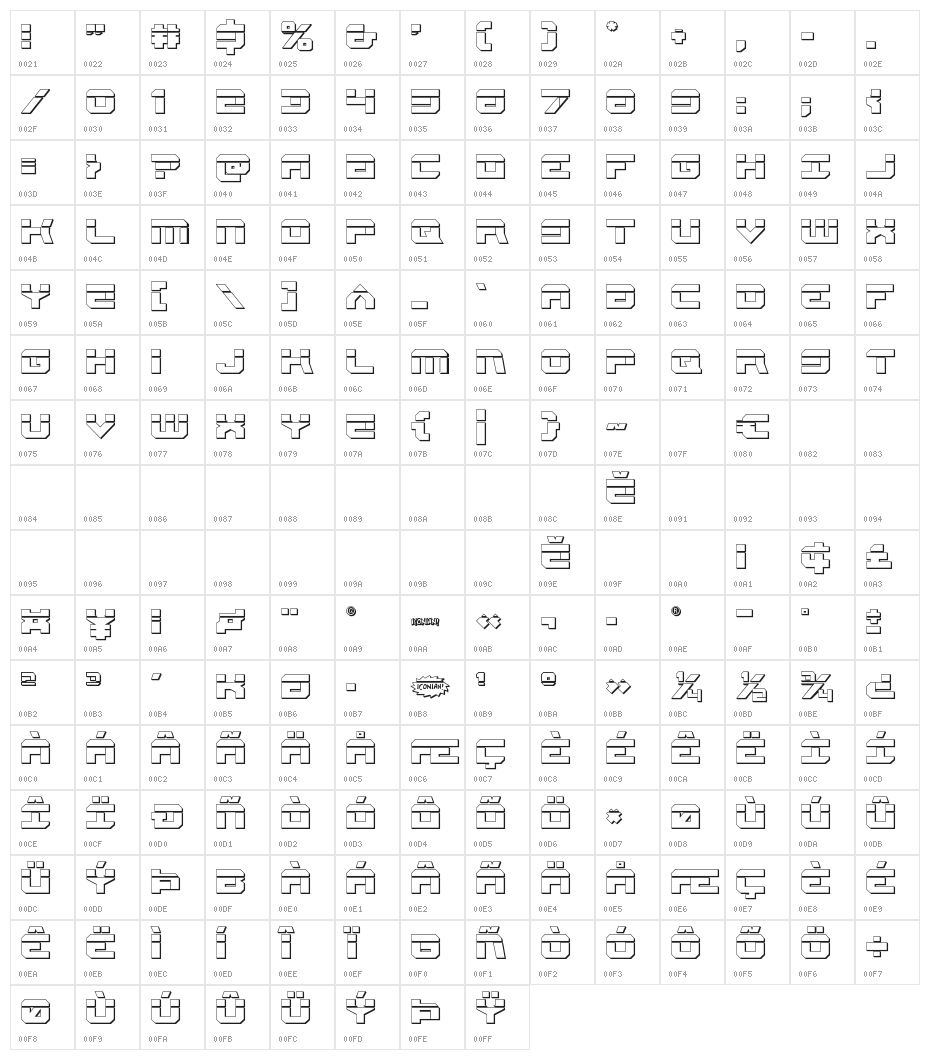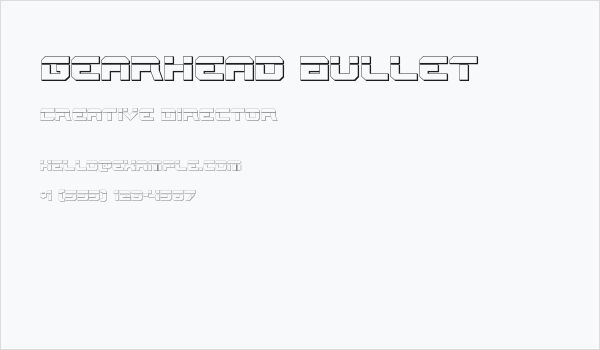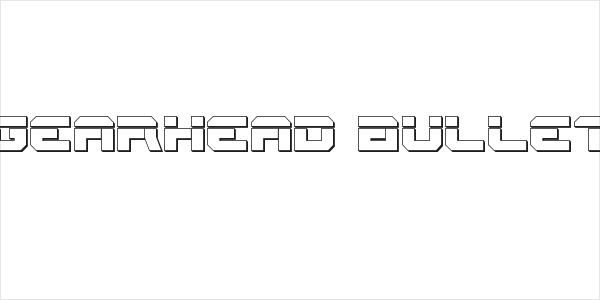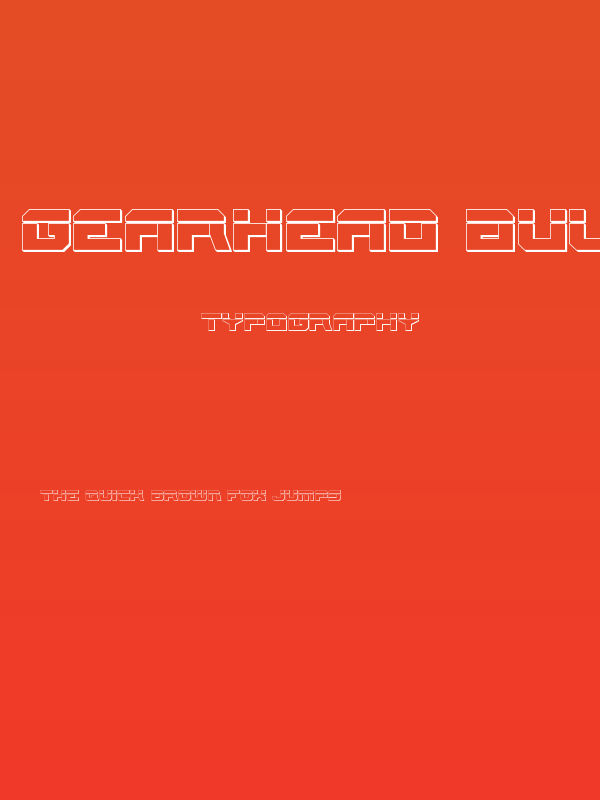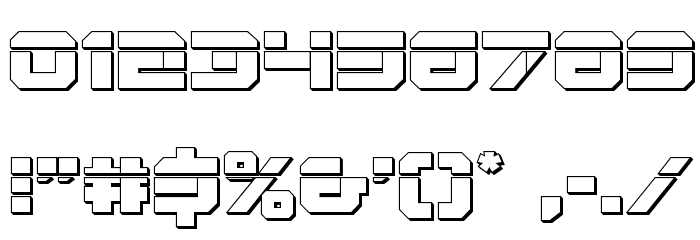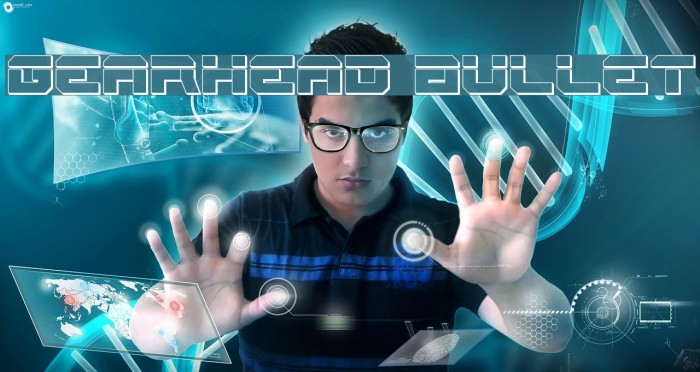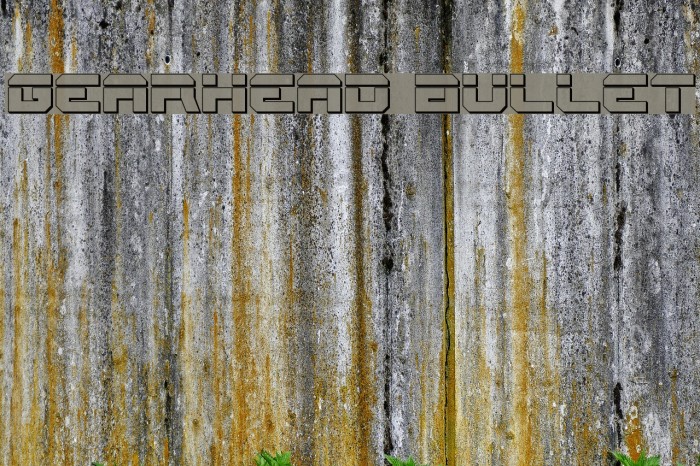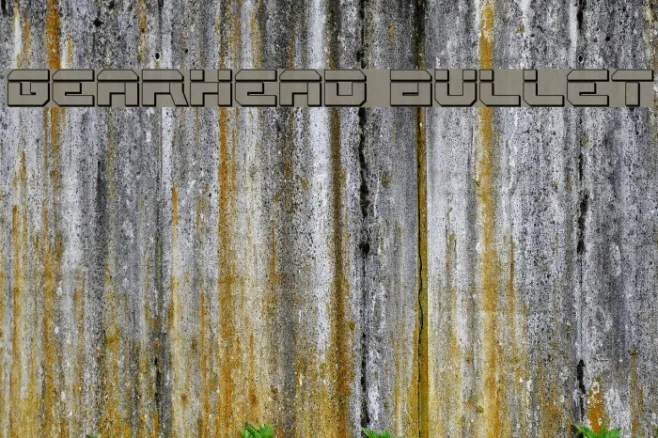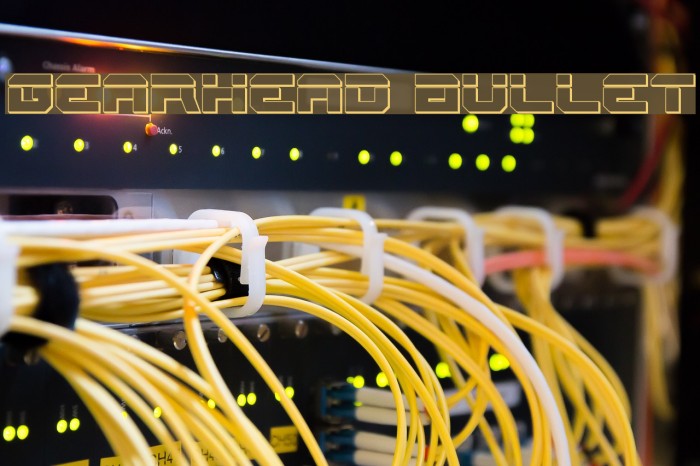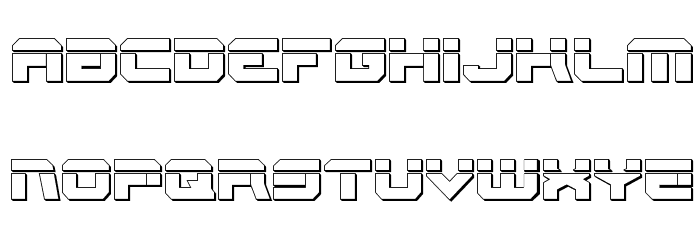
Gearhead Bullet Font
Gearhead Bullet Description
This font features a bold, geometric design with a futuristic and industrial feel. The characters are constructed with thick lines and sharp angles, creating a sense of depth and dimension. Each letter is outlined, giving it a three-dimensional appearance that stands out on the page. The uppercase letters are uniform in height, while the numbers and special characters maintain the same bold style. This font is ideal for projects that require a modern and edgy look, such as technology branding, video game titles, or sci-fi themed designs.
| Overall Style | Futuristic, Industrial |
| Proposed Projects | Ideal for technology branding, video game titles, sci-fi themed designs, and industrial-themed posters. |